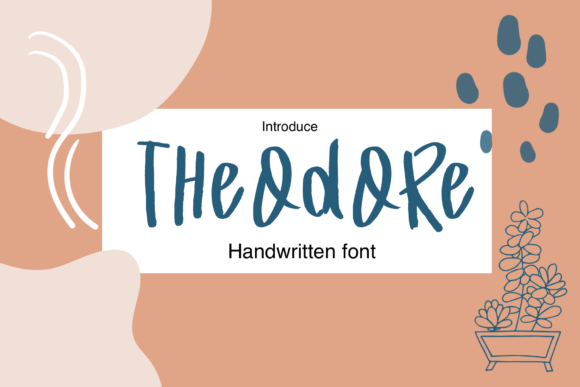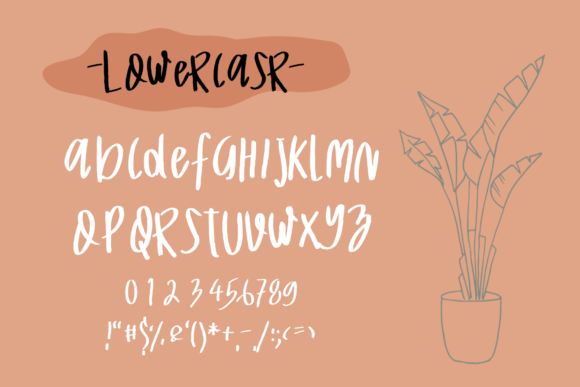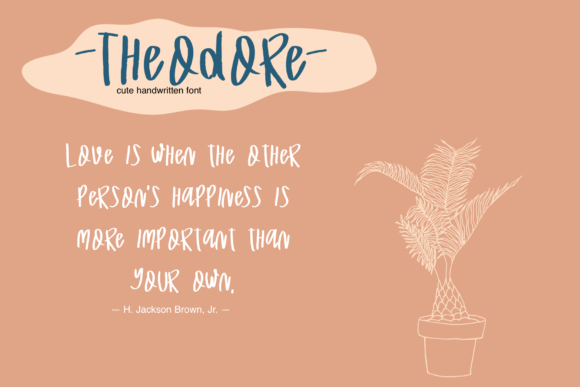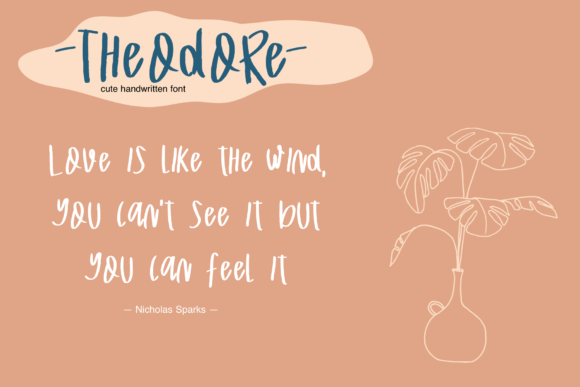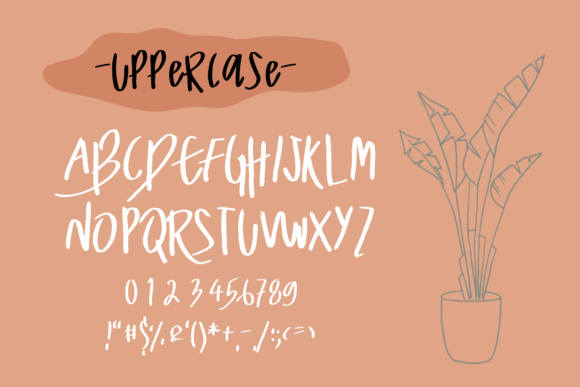
About Theodore Font
Theodore is an exquisite handwritten font, masterfully designed to become a true favorite. Fall in love with its incredibly versatile style and use it to create gorgeous wedding invitations, beautiful stationary art, eye-catching social media posts, and much more!